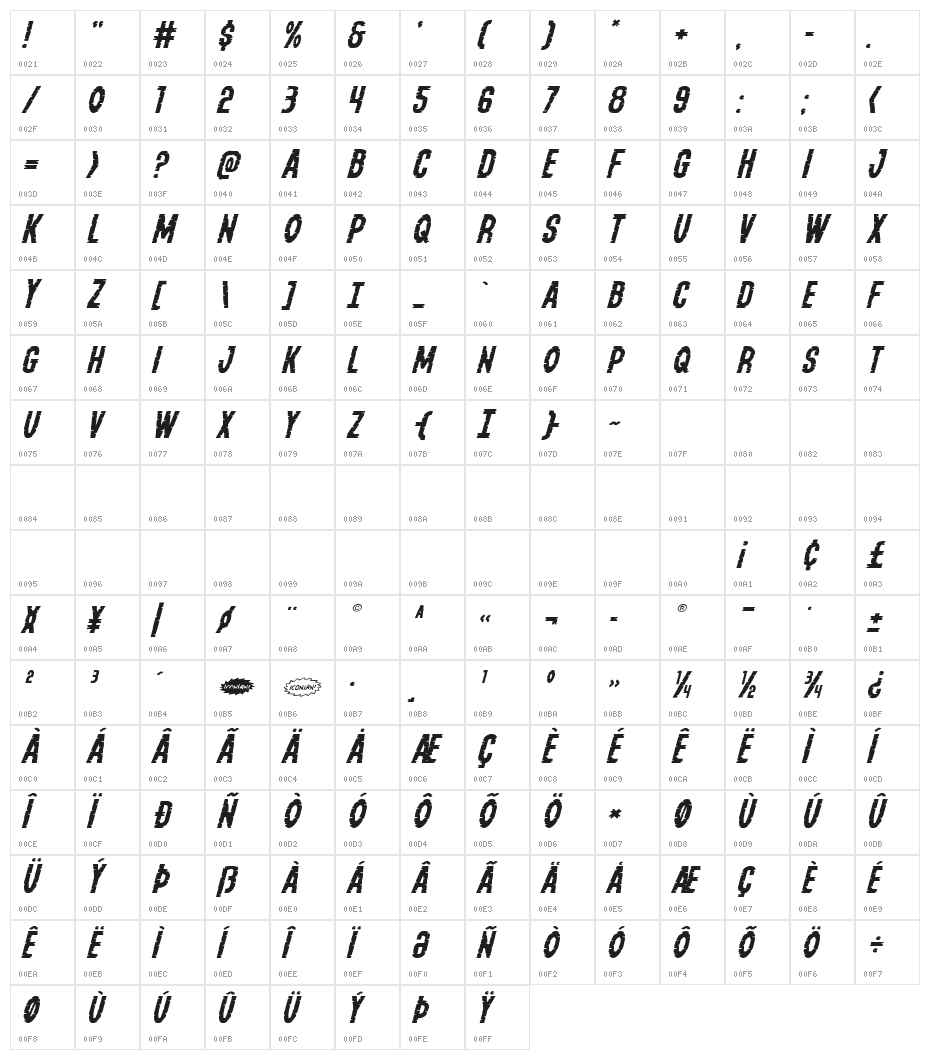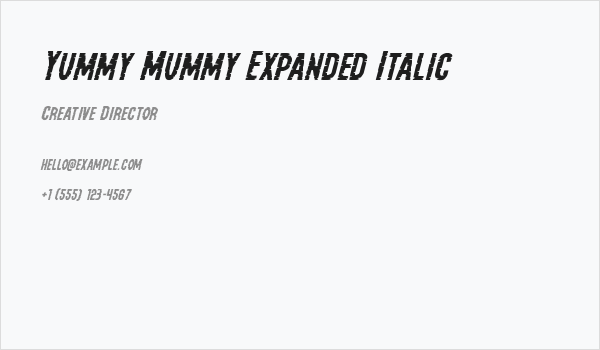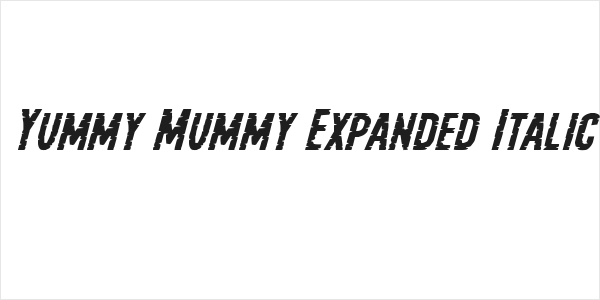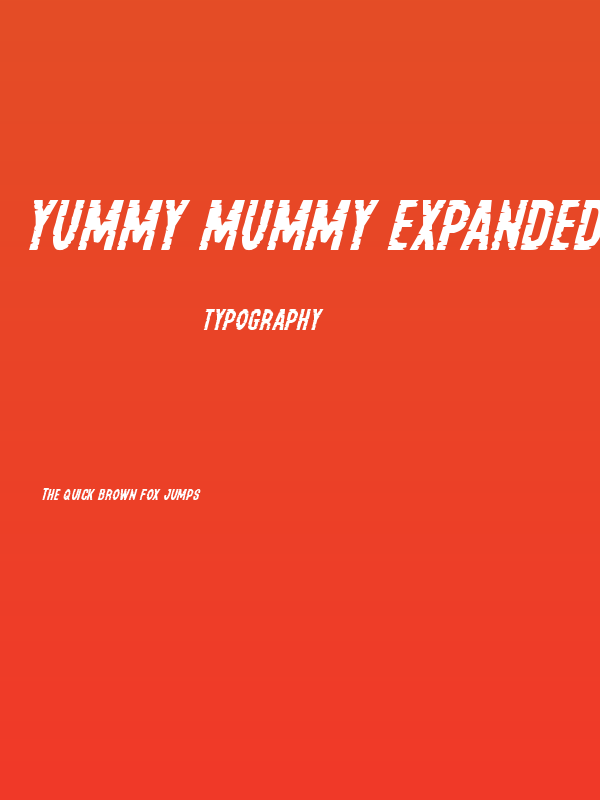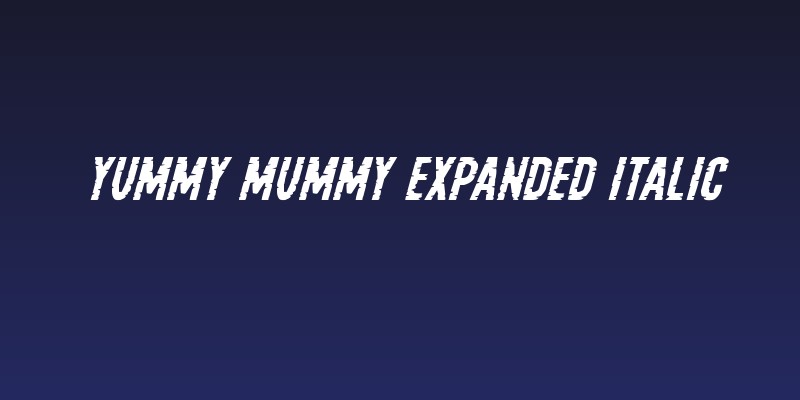
Yummy Mummy Expanded Italic Font
Yummy Mummy Expanded Italic Description
This font features a bold and dynamic style with a distinct italic slant, giving it a sense of motion and energy. The characters are expanded, providing a wide stance that enhances readability while maintaining a unique, edgy appearance. The strokes are thick and consistent, creating a strong visual impact. The font's design includes jagged edges and irregularities, adding a rugged and adventurous feel. This makes it suitable for projects that require a bold statement or a creative, unconventional look.
| Proposed Projects | Ideal for posters, headlines, branding, and any design that requires a bold and adventurous aesthetic. |